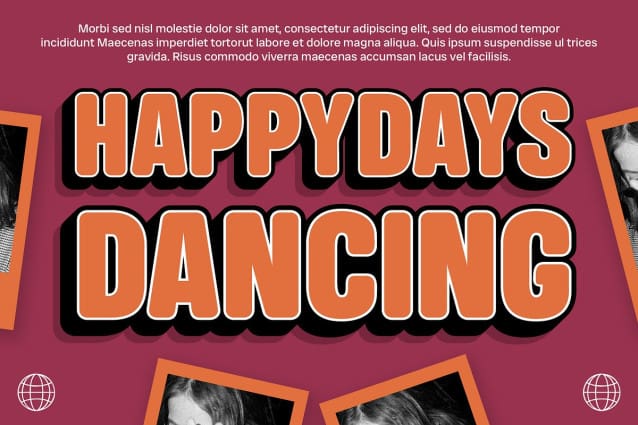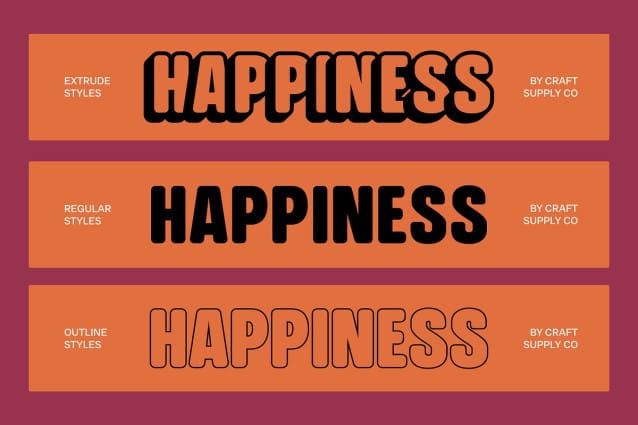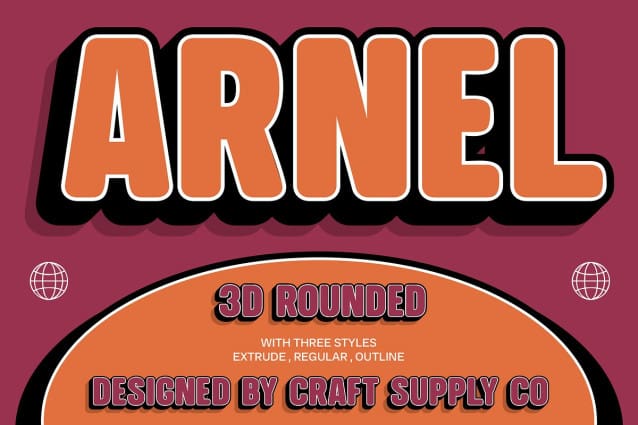
Arnel Rounded 3D Font
Arnel Rounded 3D Font is a bold sans-serif font that combines visual strength with a warm, approachable character. Its thick letterforms and rounded corners create a strong, masculine impression while ensuring a friendly and inviting appearance. This balance of power and approachability makes it perfect for a variety of design applications.
Striking 3D Effect for Added Dimension Featuring a dynamic 3D effect, Arnel Rounded 3D adds significant depth and dimension to your text. The three-dimensional appearance enhances the font’s visual impact, making it stand out with a striking and robust look. This effect is ideal for capturing attention and creating a memorable impression in your designs.
Ideal for Strong and Distinctive Visual Impact Whether used in logos, posters, or promotional materials, this rounded 3D font excels in delivering a powerful and distinctive visual impact. Its combination of boldness, roundness, and 3D depth ensures that your designs convey strength, confidence, and a modern edge.
Versatile for Various High-Impact Designs Arnel Rounded 3D’s blend of bold design elements and a 3D effect offers versatility across different creative projects. From eye-catching branding to dynamic promotional materials, this font provides a compelling visual presence that enhances any design aiming to make a strong and confident statement.